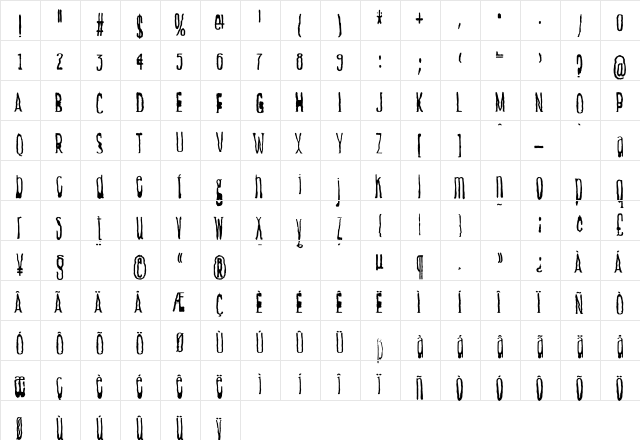
IndecisionStretched Regular Font Preview
IndecisionStretched Regular
IndecisionStretched Regular Font Details
Design Context for IndecisionStretched Typeface
IndecisionStretched is a composed and adaptable typeface that performs quietly and consistently across a wide range of design contexts.